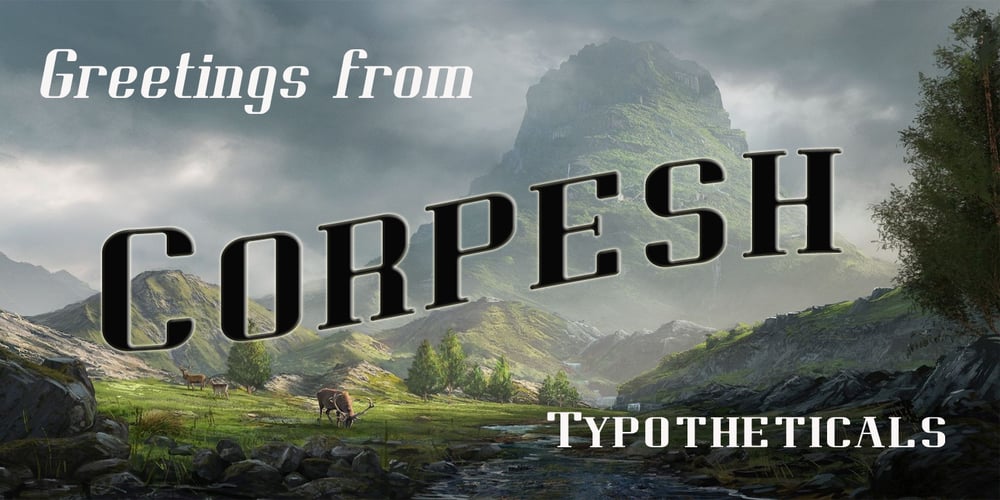
Corpesh Font Family was designed by Graham Meade and published by Typotheticals. Corpesh contains 20 styles and family package options. Corpesh was drawn in Adobe Illustrator during the wee hours of the night.It is a single weight set of fonts, no bold version. As is/was much of what I have done over the last year, it was created purely to pass time. As a self taught amateur in this field, I only do this for the enjoyment it brings me.This typeface is being released early, at the same time as ‘Brainstroke’, for exactly the same reason that typeface is, that being a health crisis.I know this typeface is not complete, with, as mentioned, no bold version, and probably never will have.